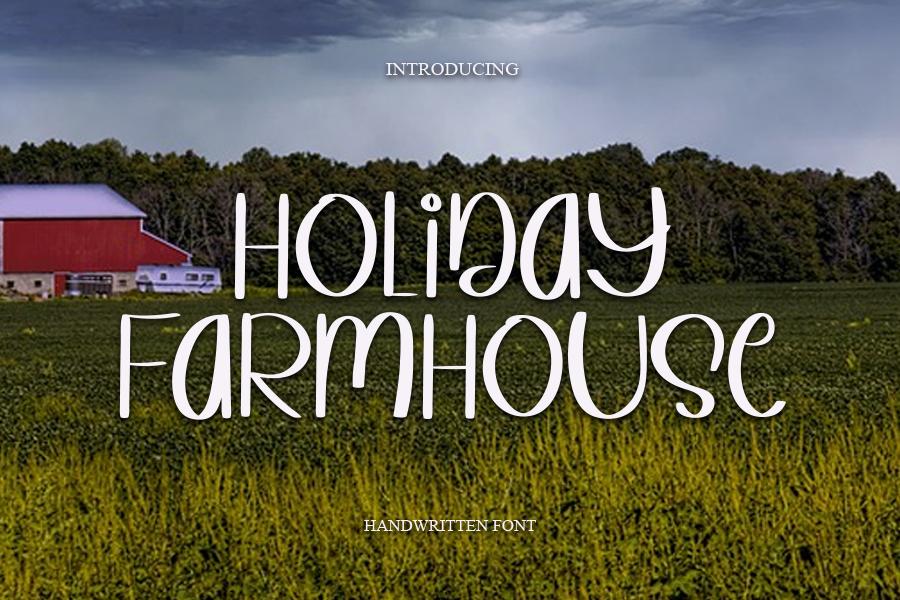
Holiday Farmhouse Font Description
Holiday Farmhouse is a magical script font carefully created with a touch of elegance. Whether you’re looking for fonts for Instagram or calligraphy scripts for DIY projects, this font will turn any creative idea into a true piece of art!